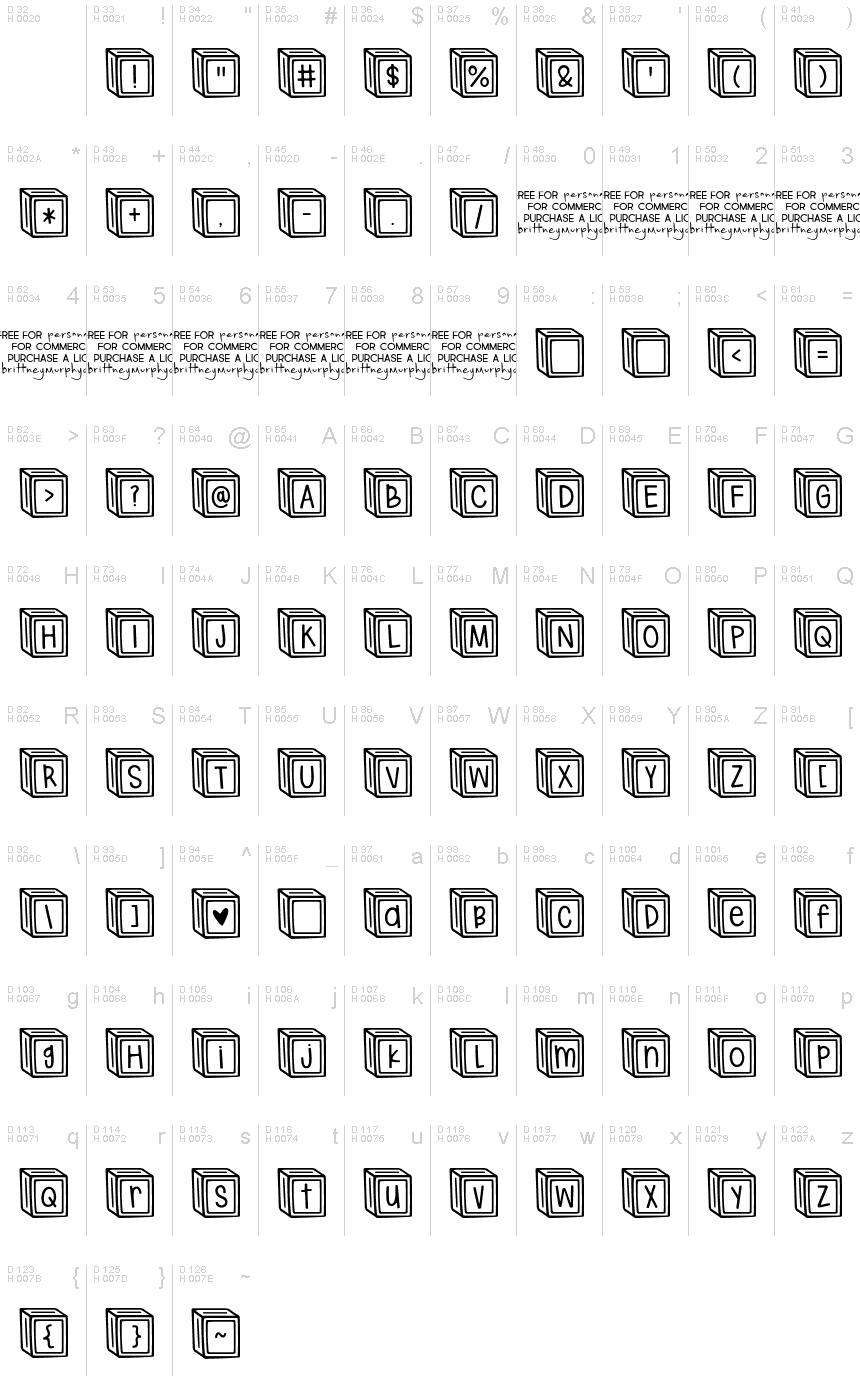
Letter ^ Blocks Regular
Welcome to the whimsical world of Letter ^ Blocks, a display font designed by Brittney Murphy Design. This charming semi-light typeface brings your words to life with its 3D decorative style.
Perfect for children's books, toy packaging, and playful marketing materials, this cute alphabet block font offers endless creative possibilities. Add a heart block with the circumflex or leave room for imagination with an underscore for a blank block.
Let your designs take shape with Letter ^ Blocks!